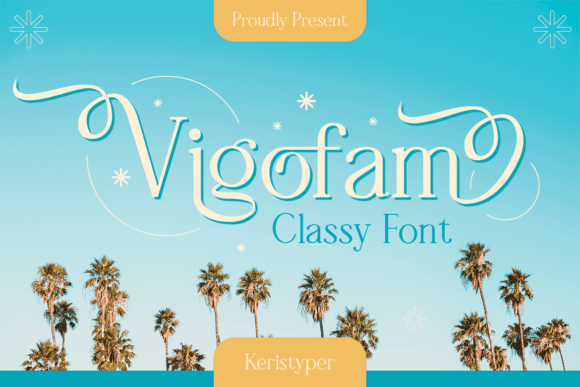
Prepare yourself to be mesmerized by Vigofam, the exquisitely crafted serif font that will captivate your senses and elevate your designs to extraordinary heights. As you delve into this typographic masterpiece, allow its dynamic serifs to enchant you, leaving a lasting impression of elegance and sophistication.
Crafted with meticulous attention to detail, Vigofam's graceful curves and delicate strokes evoke a sense of timeless beauty, reminiscent of classic calligraphy. Whether you seek to create stunning logos that exude authority, captivating social media posts that demand attention, or movie titles that ignite the imagination, Vigofam stands ready to elevate your creative visions.
Furthermore, Vigofam's versatility extends beyond mere aesthetics. Its ability to effortlessly complement both short and long texts makes it an ideal choice for books, magazines, and other literary endeavors. Whether you seek to convey profound thoughts, share captivating stories, or simply craft visually appealing documents, Vigofam seamlessly adapts to your every need.
Immerse yourself in the world of Vigofam and unlock a world of creative possibilities. Let your imagination run wild as you explore the depths of this remarkable font. From delicate wedding invitations to bold marketing campaigns, Vigofam empowers you to craft designs that resonate with your audience, leaving a lasting impression that speaks volumes.